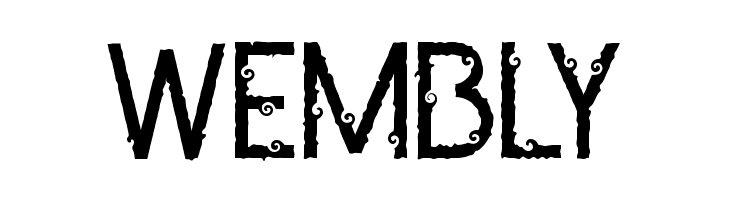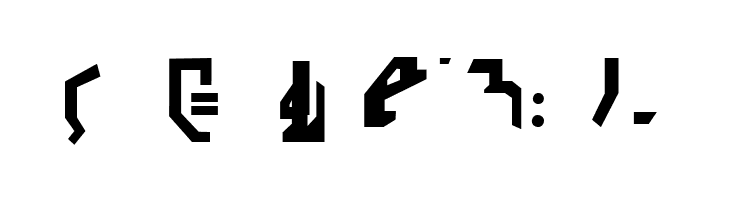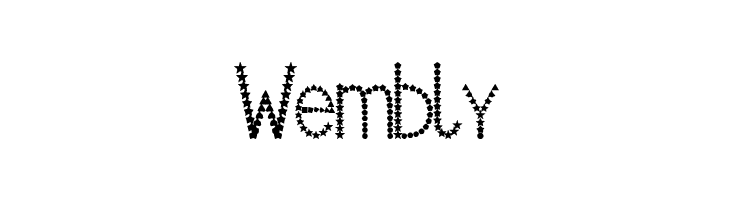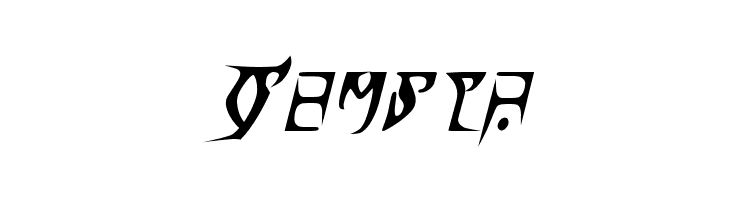
A bold, italicized font with sharp, angular, and mystical design.
A playful, handwritten font with a casual and whimsical style.
A casual, handwritten font with a friendly and approachable style.
A lively, cursive handwritten font with fluid strokes and elegant connections.
A whimsical, playful font with bold curves and enchanting flourishes.
A playful, textured font with a hand-drawn, sketch-like appearance.
A bold, eclectic font with a rebellious, punk-inspired aesthetic.
A bold, playful font with irregular, edgy characters and a dynamic, energetic feel.
A bold, playful handwritten font with a casual and friendly style.
A chaotic, textured font with jagged strokes, ideal for eerie or mysterious themes.
A bold, angular font with a runic, tribal aesthetic and distressed texture.
A bold, angular font with a medieval, runic style.
A bold, italicized font with sharp, angular edges and a futuristic look.
A decorative, distressed font with circular embellishments for a playful yet edgy look.
A playful, casual handwritten font with uneven strokes and a natural flow.
An elegant script font with intricate swashes and decorative flourishes.
A fluid, cursive font with a handwritten charm and seamless character connections.
A playful, artistic display font with a chaotic, hand-drawn style.
A bold, dripping font ideal for horror and Halloween themes.
A bold, gothic Blackletter font with intricate, angular designs.
A bold, expressive script font with dynamic, fluid strokes.
A dynamic brush-style font with expressive, fluid strokes and artistic flair.
A bold, brush-style font with a dynamic, handwritten appearance.
A bold, angular graffiti-style font with dynamic, fragmented characters.
A decorative font made of star and circle shapes, offering a playful and unique style.
A bold, rounded font with a playful and approachable style.
A bold, rounded font with a playful and modern style.
A bold, rounded font with a playful and bubbly style.
A modern, rounded font with consistent stroke width and friendly appearance.
A rounded, smooth font with uniform strokes and a friendly appearance.